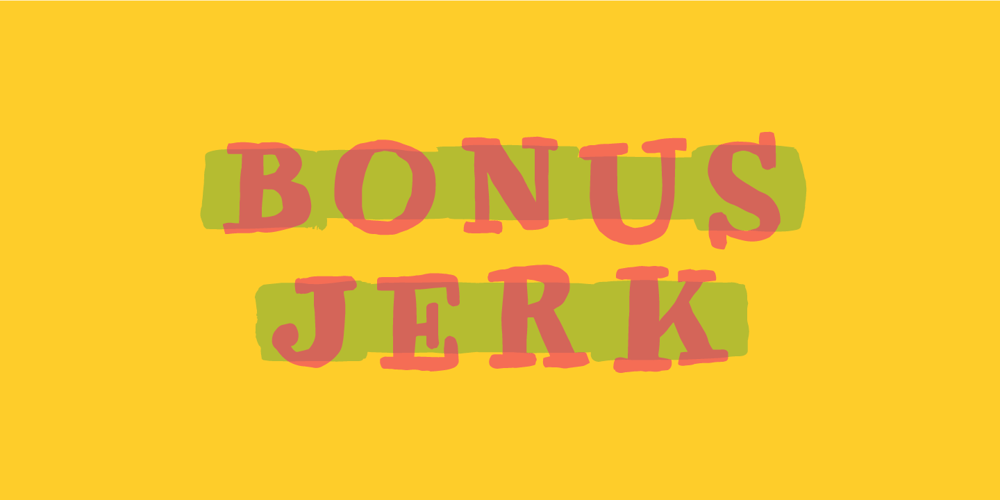
Bonus Jerk Font Family was designed by Jakob Fischer and published by PizzaDude.dk. Bonus Jerk contains 2 styles and family package options. Serifs gone crazy! They are legible and recognisable and at the same time jumpy, skewed and random! What makes it really cool is that every letter has 5 different versions – and they automatically cycle as you type. That will make your text look quite random and more authentic (rather than obviously repeating letters!)Bonus Jerk also comes with a complimenting Box version – a handdrawn background layer, made to make the letters stand more out!